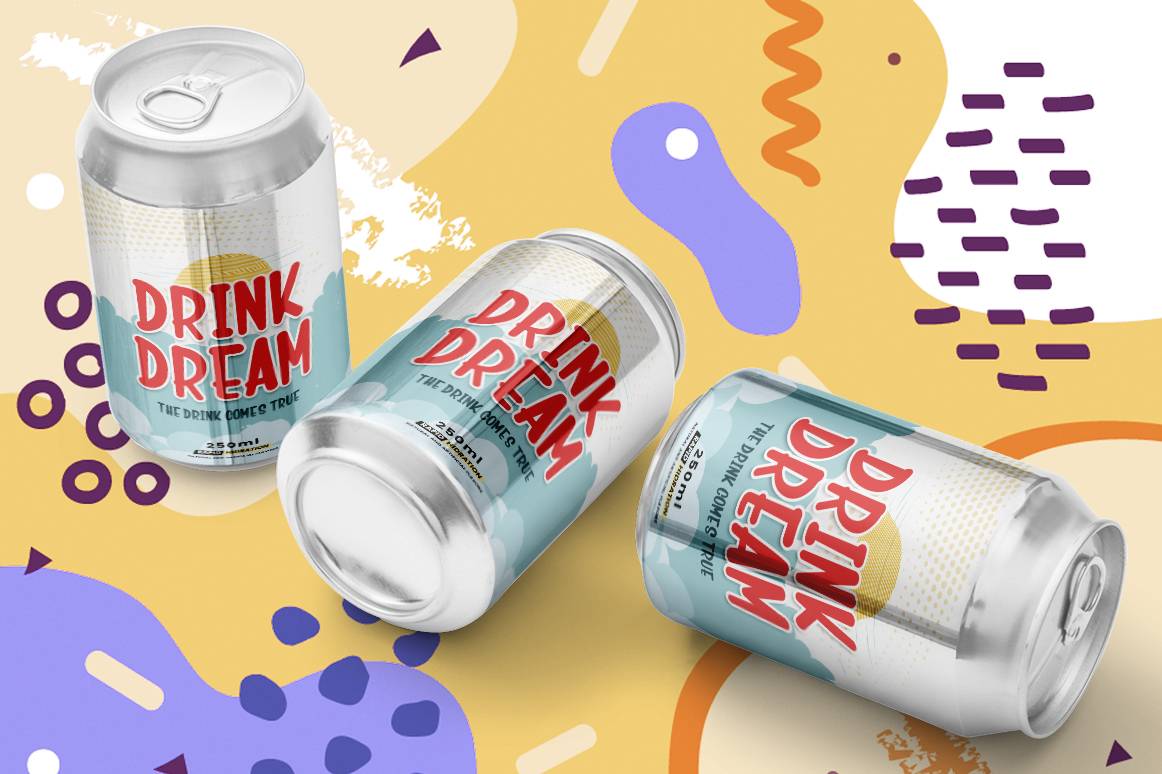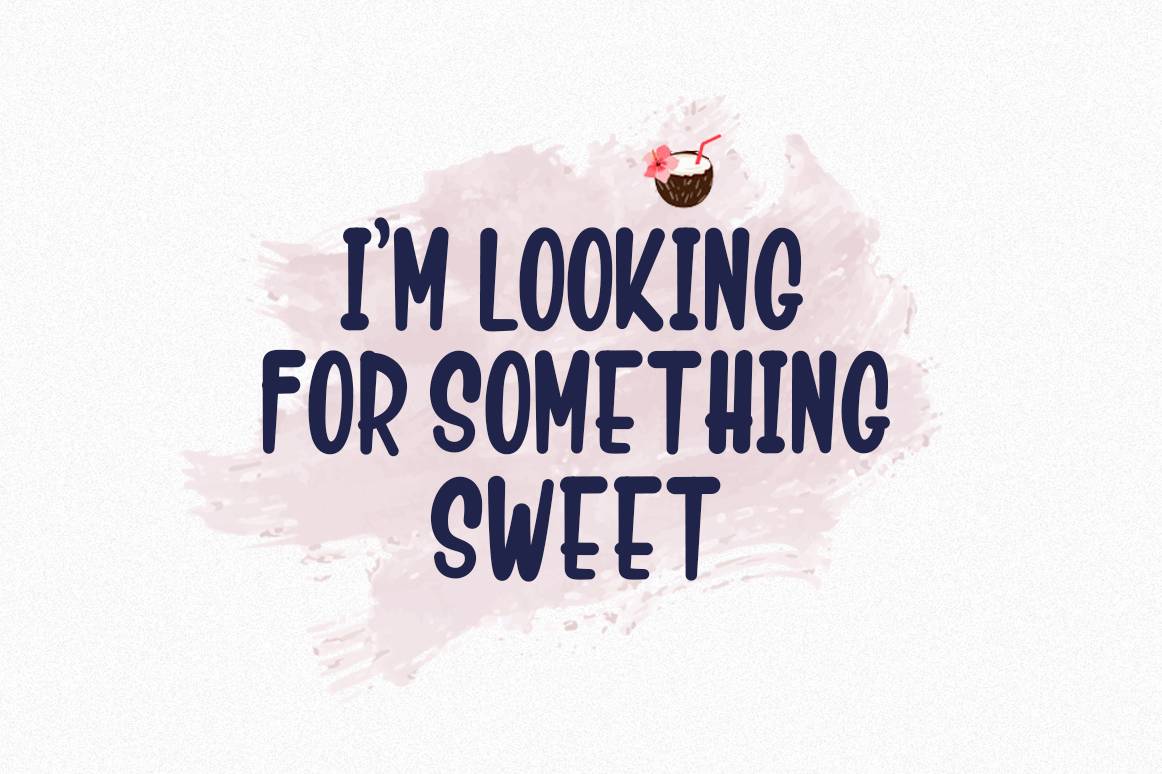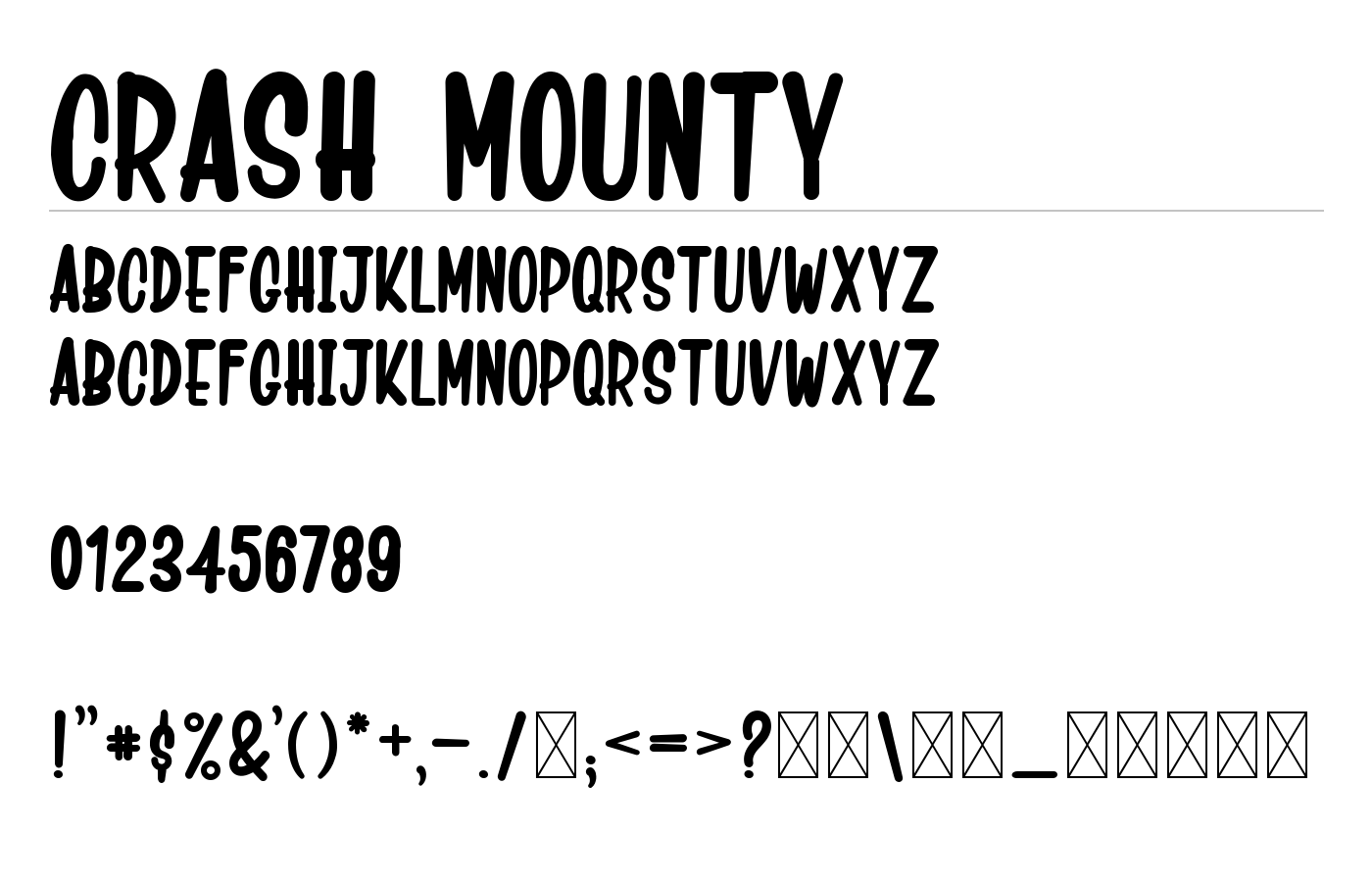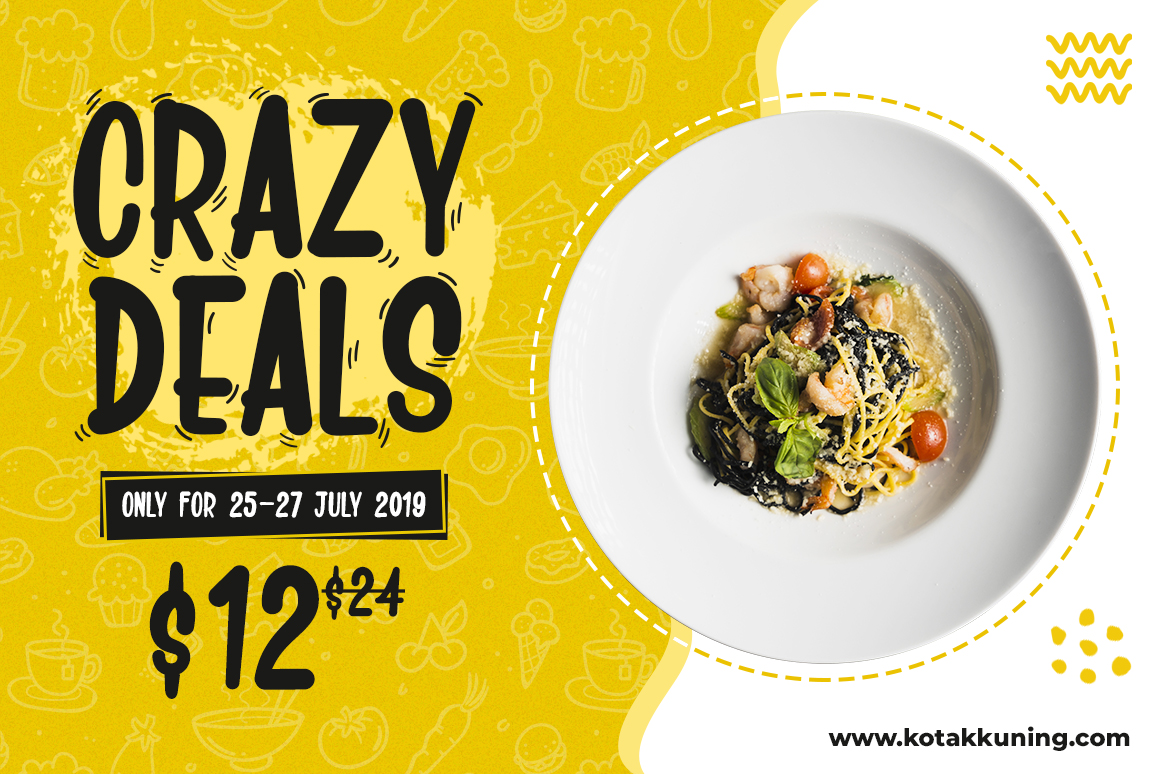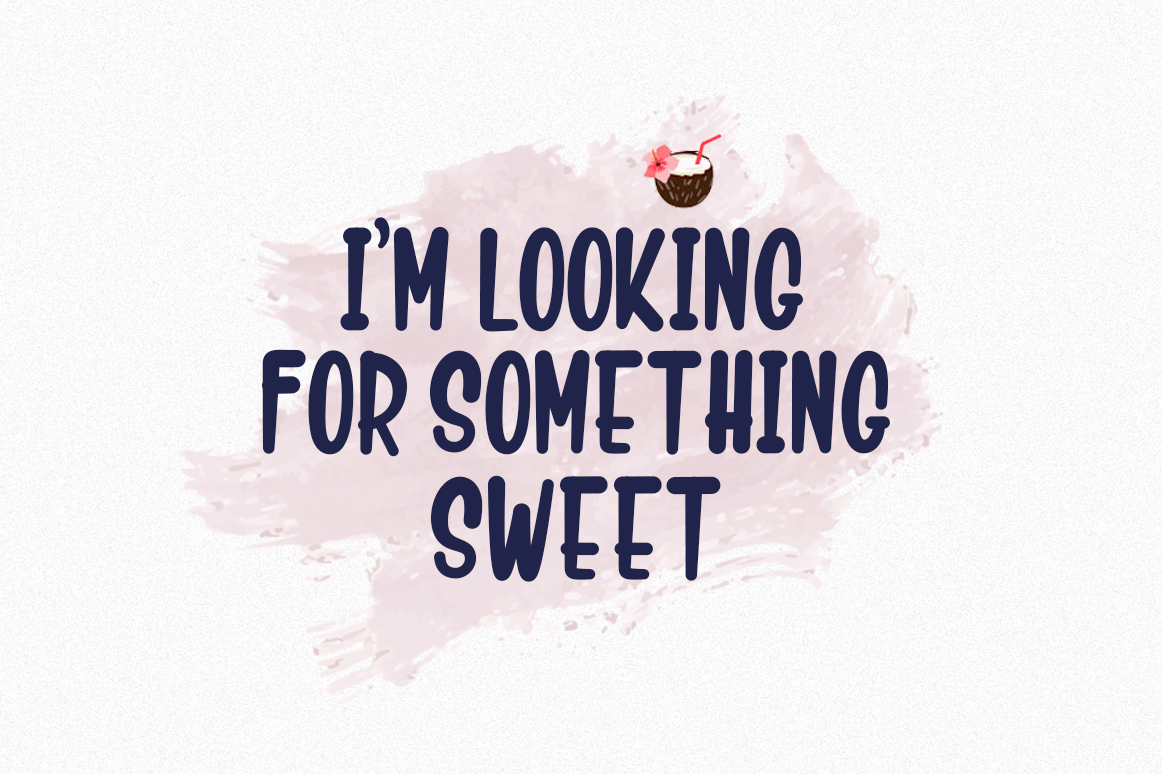
Crash Mounty is a bold, playful sans serif font with a hand-drawn, slightly irregular style that adds a fun and casual personality. Its tall, rounded letterforms with subtle stroke variation make it perfect for eye-catching headlines, branding, and projects that want to communicate energy and friendliness. This font works especially well for children’s designs, informal packaging, and creative posters where a lively and approachable feel is desired.
Crash Mounty
About Crash Mounty
| Font family | Crash Mounty |
| Designer | M Arif Dwi Prasetyo & Eko Nurcahyo |